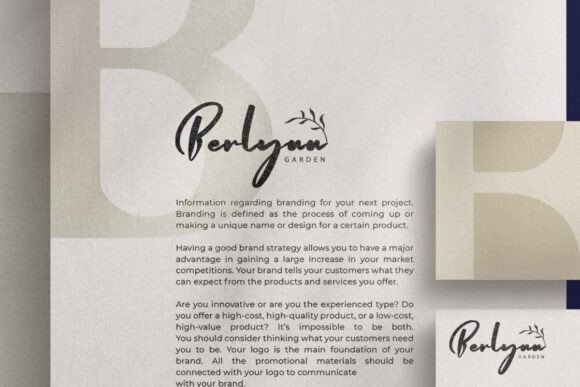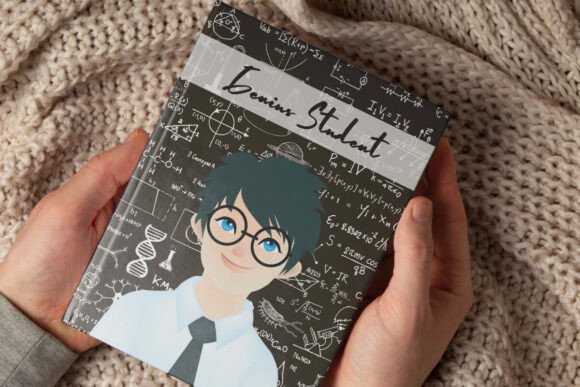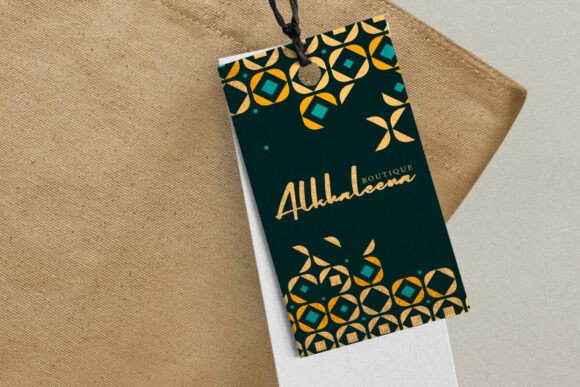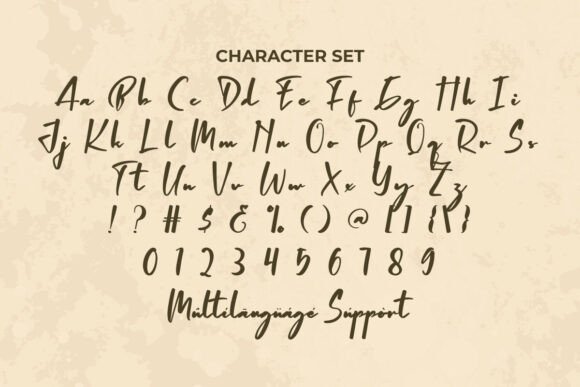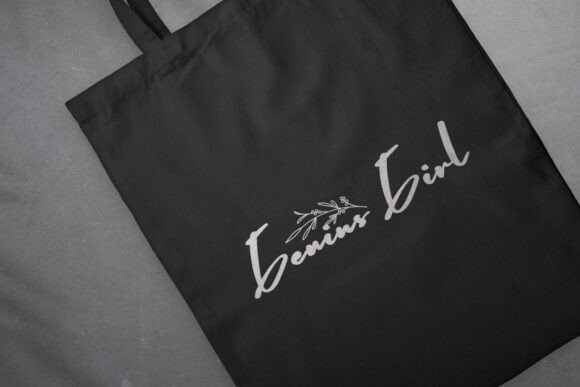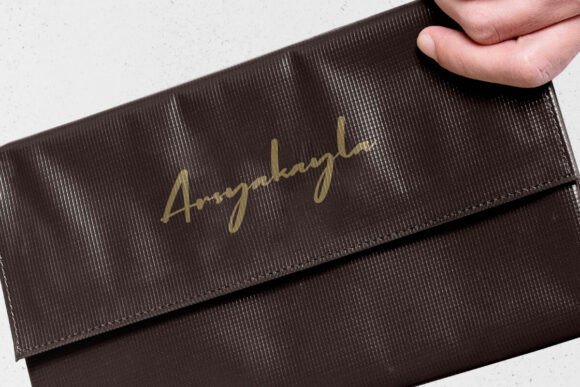
The Perfect Brush Stroke: Unlocking the Power of Authentic Genious Font
As designers, we’ve all been there – staring at a blank canvas, waiting for that spark of creativity to strike. It’s the moment when everything falls into place, and our vision begins to take shape. For me, it’s the feeling of picking up a pen and letting my thoughts flow onto the page. It’s the sound of the pen gliding across the paper, leaving behind a trail of expressive lines and curves.
That’s exactly what Authentic Genious Font is all about – capturing the essence of human touch in a digital format. This bold retro brush signature handwriting font is designed to add a personal touch to any project, from branding to marketing materials. Its thick lines and unique character make it a valuable asset for designers looking to add a touch of authenticity to their work.
Authentic Genius Font Key Features
- Font Family: Authentic Genius Font
- Unique Characteristics: Authentic Genius Font features a unique blend of modern and vintage elements, with intricate details and ornate flourishes, making it ideal for creative and artistic projects.
Authentic Genious Font Review
First off, I think it’s great that the font is trying to push the boundaries of traditional typography with its unique blend of modern and vintage elements ✨. The font does have a certain charm to it, and it’s clear that the designer was going for a more artistic and expressive look. The font is also highly customizable, which is a definite plus.
- Unique blend of modern and vintage elements
- Good for creative or artistic projects
However, there are some limitations to the font that need to be considered ⚠️. For one, the font can be a bit too ornate for certain types of projects, and it may not be suitable for projects that require a more straightforward or traditional look. Additionally, the font’s complexity can make it difficult to read at smaller font sizes, which may be a problem for certain types of content.
- Can be too ornate for certain projects
- Difficulty reading at smaller font sizes
- May not be suitable for projects that require a traditional look
Overall, I think the Authentic Genious Font is a great choice for creative or artistic projects, but it may not be the best fit for every type of project. With a bit of restraint and careful consideration, this font can add a unique touch to your designs.
Getting the Most Out of Authentic Genius Font
To get the most out of the Authentic Genius font, use it for:
Headings and titles to add a touch of sophistication.
Body text to create a unique and memorable tone.
Emphasize key points or quotes to draw attention.
The Authentic Genius font is ideal for:
Branding and marketing materials.
Business presentations and reports.
Creative projects and artistic expressions.
Alternatives to Authentic Genious Font
Lato is a sans-serif font that is highly legible and versatile. It is suitable for use in body text, headings, and titles. Lato has a clean and modern design, making it an excellent choice for digital products and websites. Compared to Authentic Genious Font, Lato is more neutral and doesn’t have the same level of flair, but it is more readable and adaptable.
Merriweather is a classic serif font with a traditional look. It is suitable for use in body text, headings, and titles, particularly in academic and professional settings. Merriweather has a more formal and elegant design compared to Authentic Genious Font, which makes it more suitable for high-end publications and luxury brands.
Abril Fatface is a decorative script font that is perfect for adding a touch of elegance and sophistication to designs. It is suitable for use in titles, headings, and quotes. Compared to Authentic Genious Font, Abril Fatface is more ornate and decorative, making it ideal for high-end fashion, luxury, and creative brands.